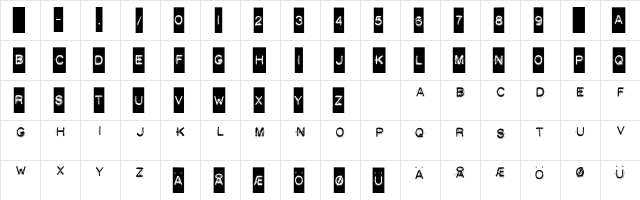
DEATH STRUGGLE Regular
Design Context for DEATH STRUGGLE Typeface
DEATH STRUGGLE carries an unsettling edge — its distorted letterforms are built to unsettle, perfectly suited to horror, Halloween, and dark creative work.
Ideal for Halloween projects, horror film titles, haunted house signage, and dark editorial design.
Font Pairing: Pair with a clean neutral sans-serif for body copy to let DEATH STRUGGLE's character lead without overwhelming the composition.
Pro Tip: DEATH STRUGGLE works best as a headline or focal element. Pair it against plain, neutral body text to amplify the contrast.